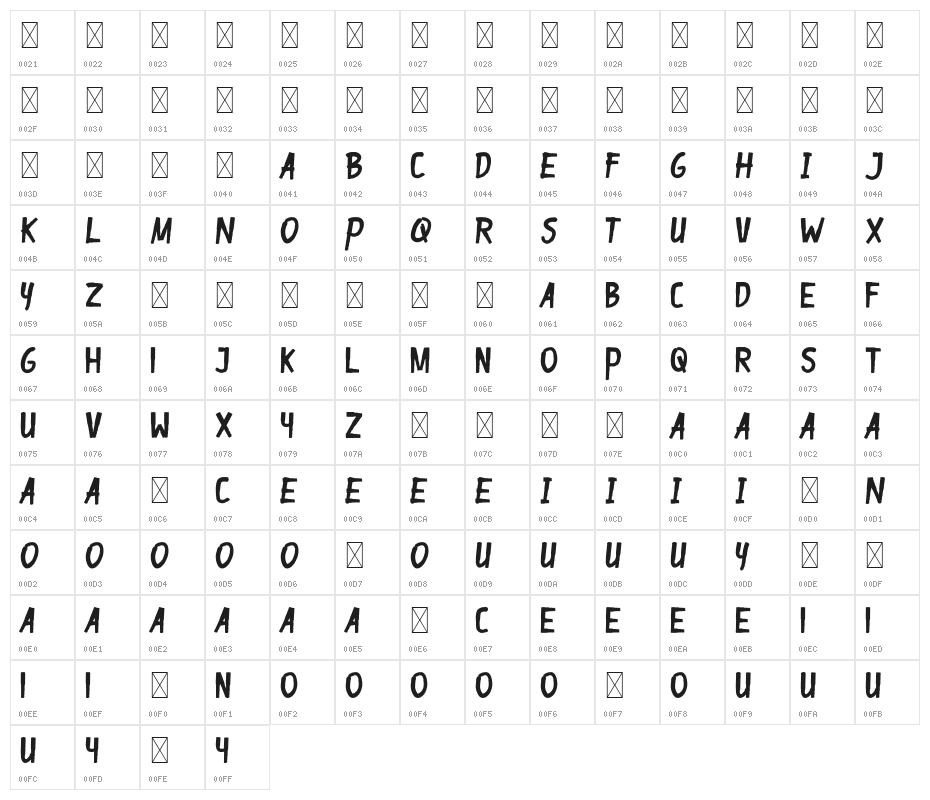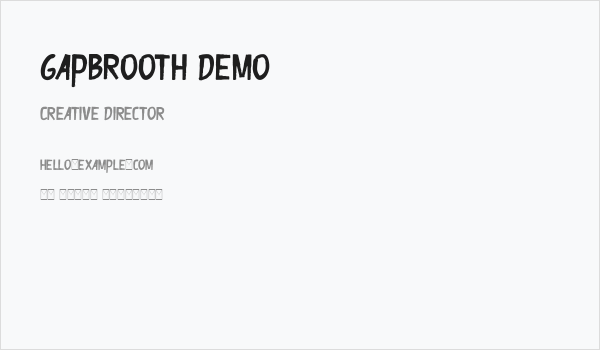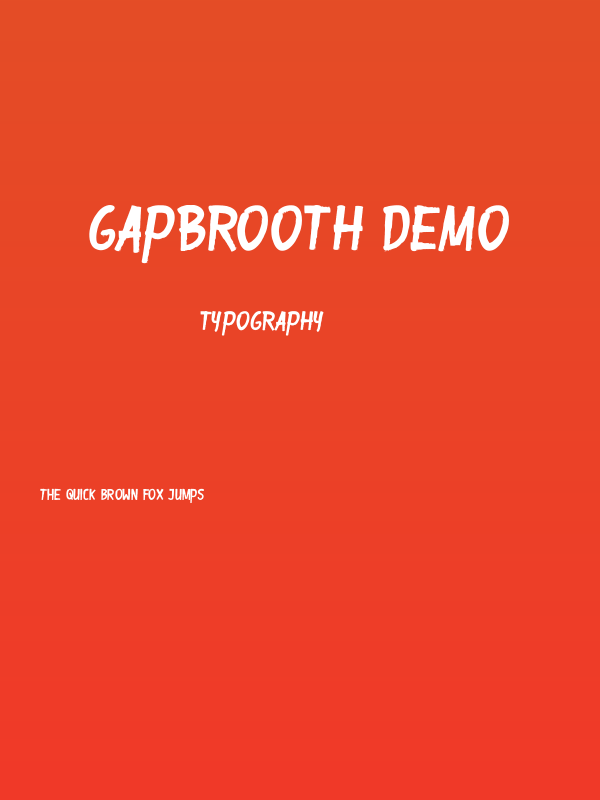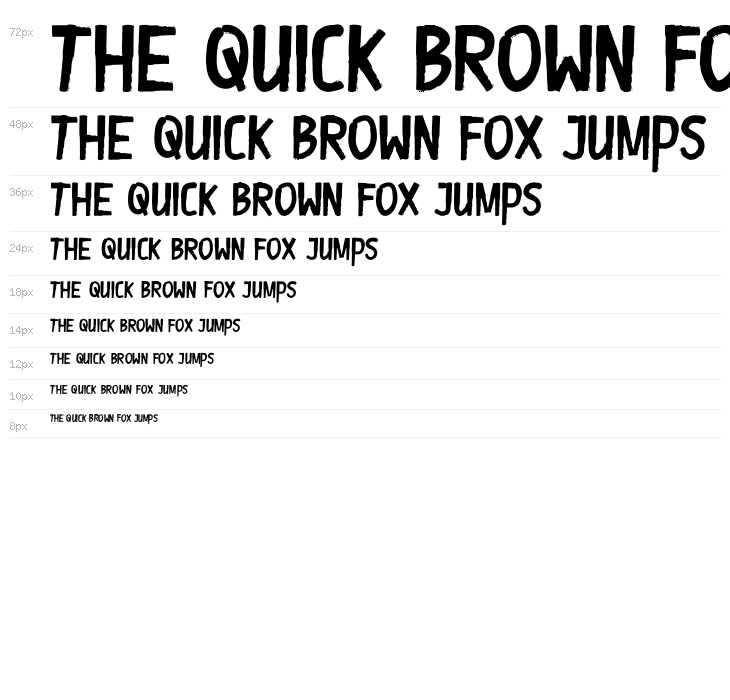
Gapbrooth Demo Font
Gapbrooth Demo Description
This font exhibits a bold and dynamic handwritten style, characterized by its brush-like strokes and slightly irregular edges, giving it a casual yet impactful appearance. The uppercase letters are prominent and assertive, while the lowercase letters maintain a consistent flow, enhancing readability. The font's energetic and informal nature makes it suitable for projects that require a personal touch or a creative flair. The spacing between characters is relatively tight, which contributes to its cohesive look. The font's overall style is modern and expressive, making it ideal for designs that aim to capture attention and convey a sense of individuality.
| Overall Style | Modern, Expressive |
| Proposed Projects | Ideal for branding, posters, social media graphics, and creative advertising campaigns. |